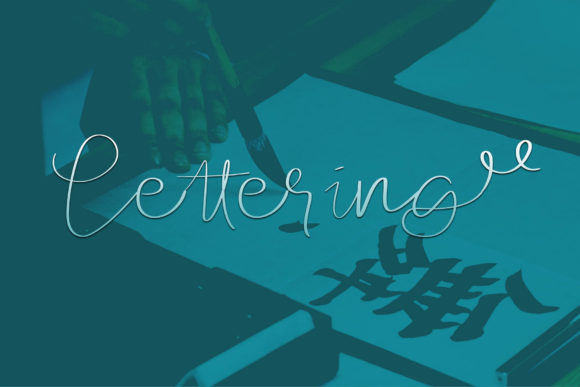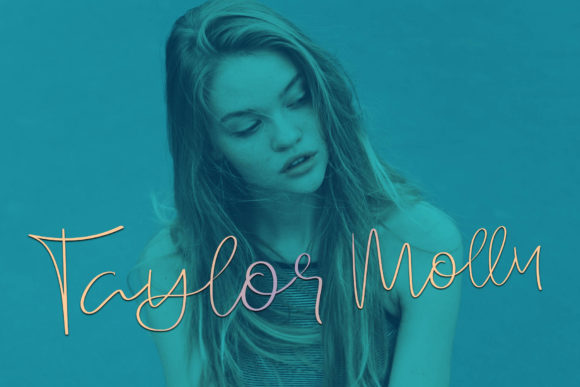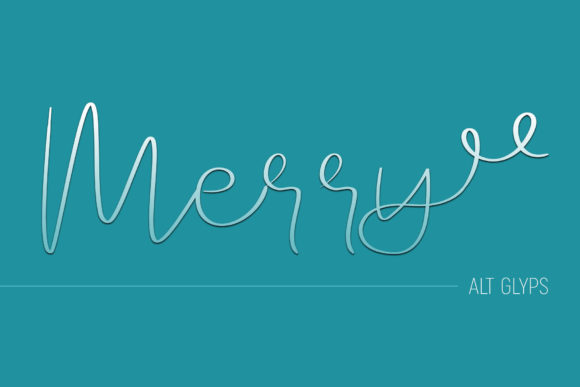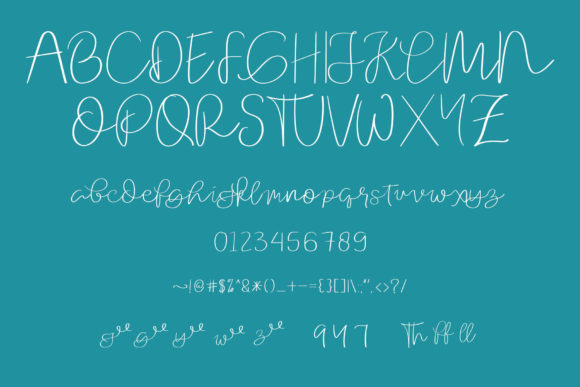
Introduction to Orchard Font
The Orchard is an elegant script font.
It’s handwritten and perfect for adding an authentic look to your designs .
Key Features of Orchard Font